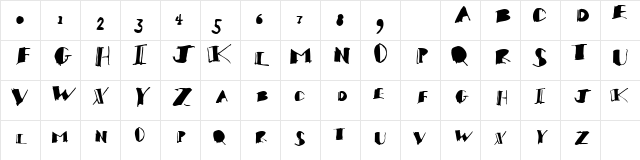
Gossip Regular
Design Context for Gossip Typeface
Gossip is a composed and adaptable typeface that performs quietly and consistently across a wide range of design contexts.